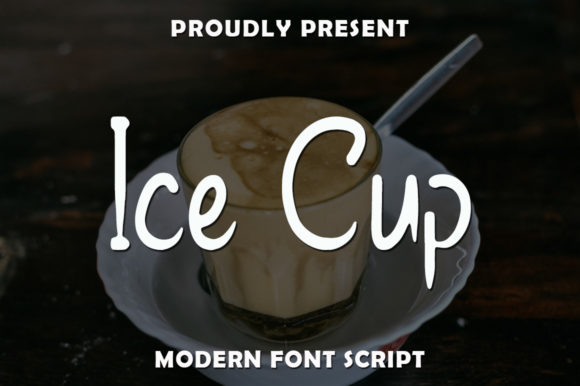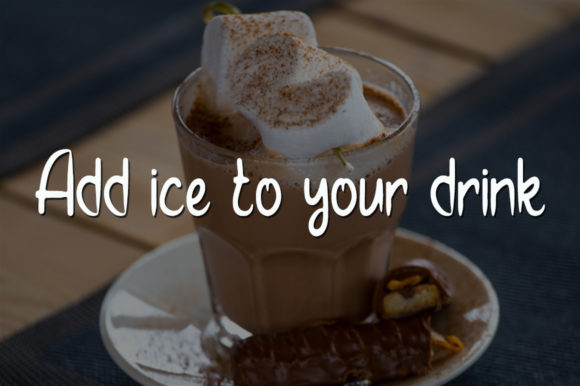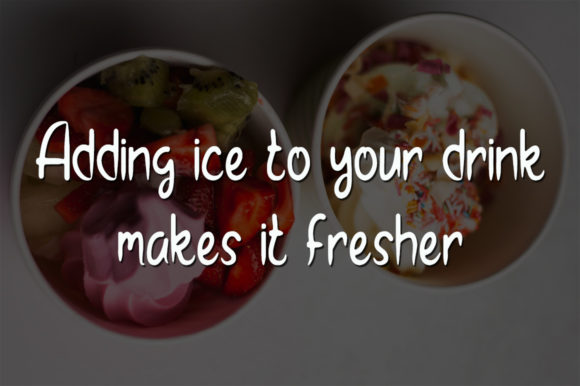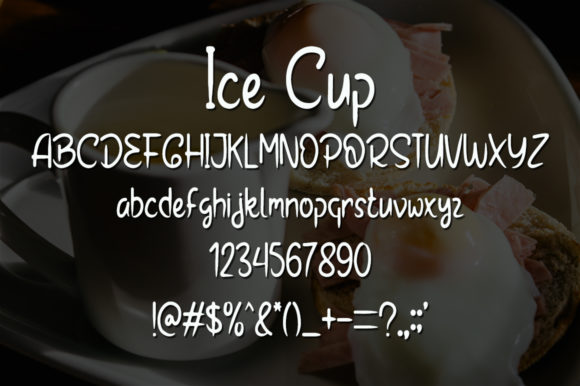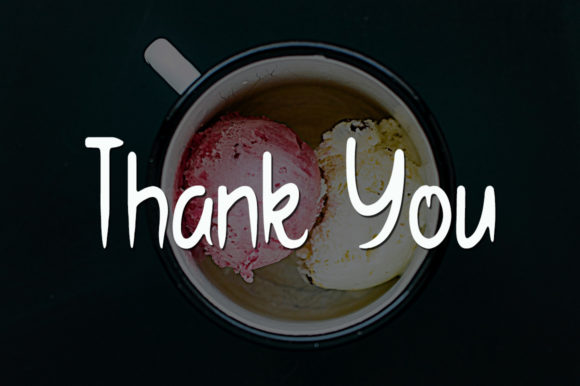
Ice Cup Font
About Ice Cup Font
Ice Cup is a sweet and clean handwritten font. This neat look will appeal to a wide range of crafty ideas, from letterheads and titles, to stationery.